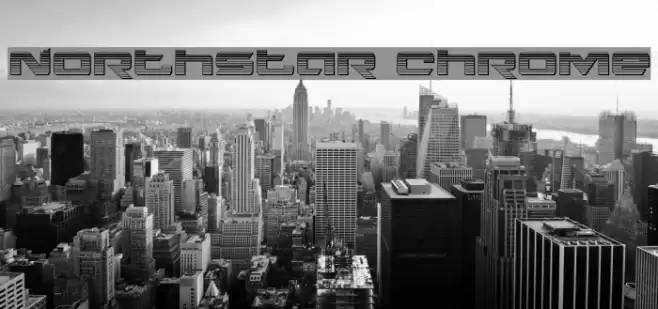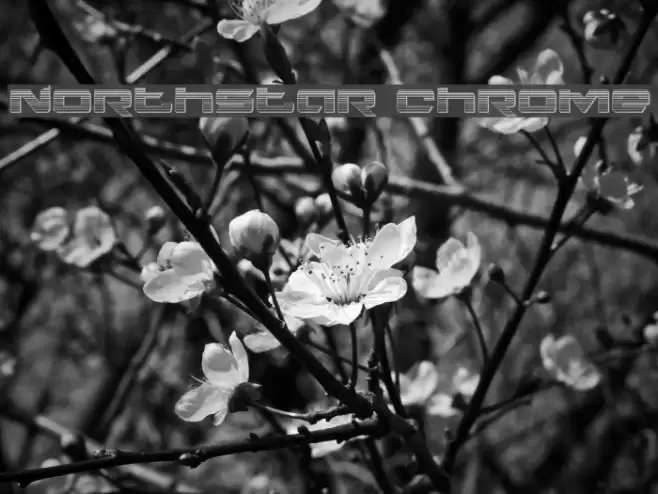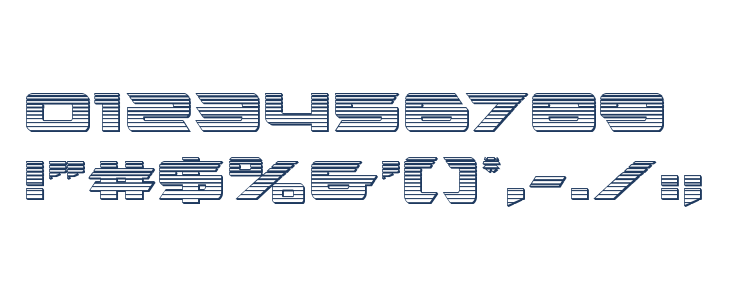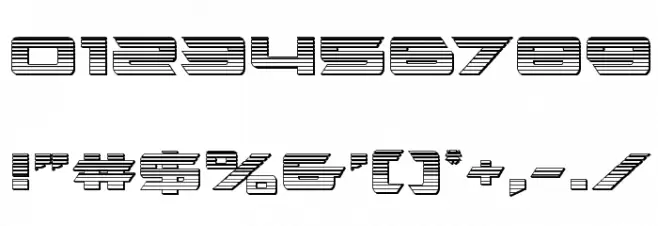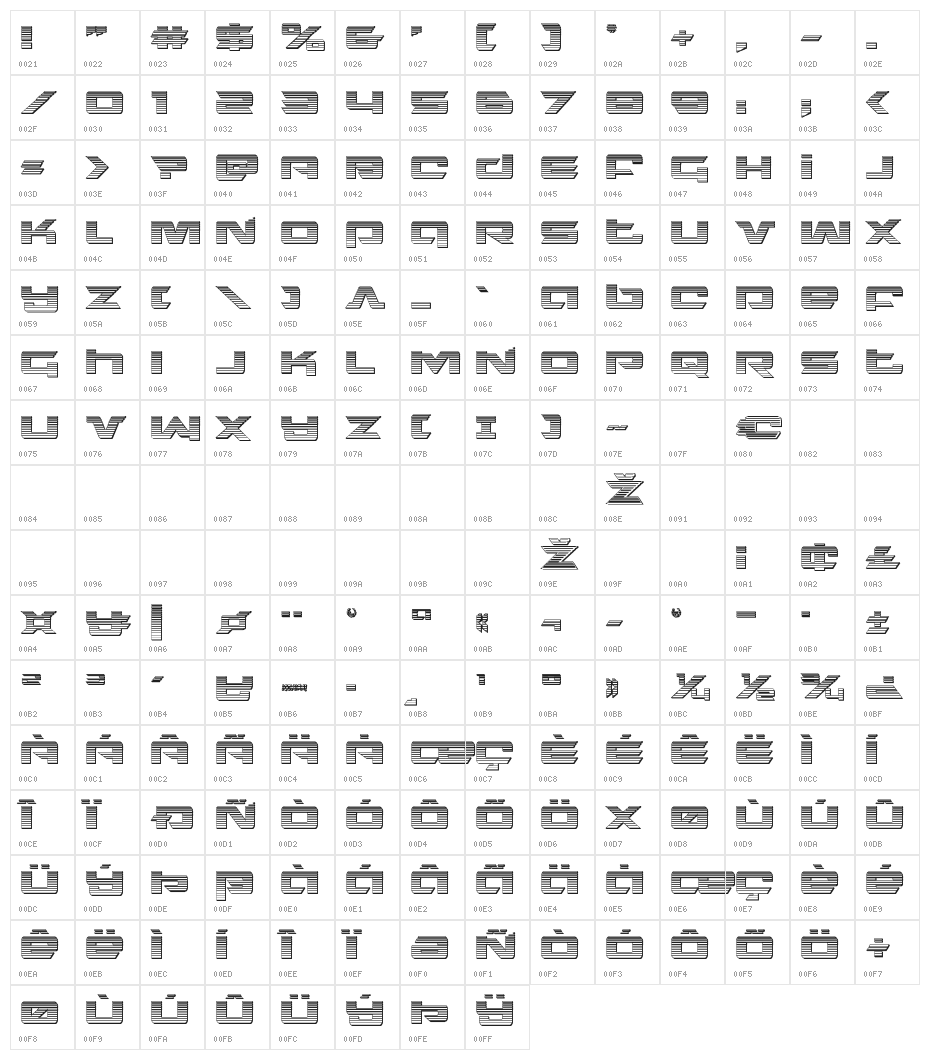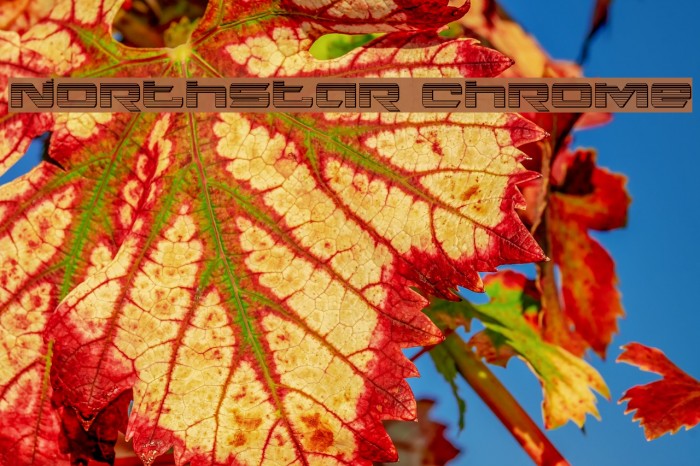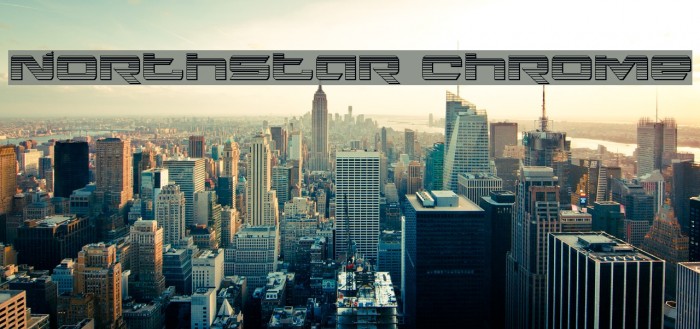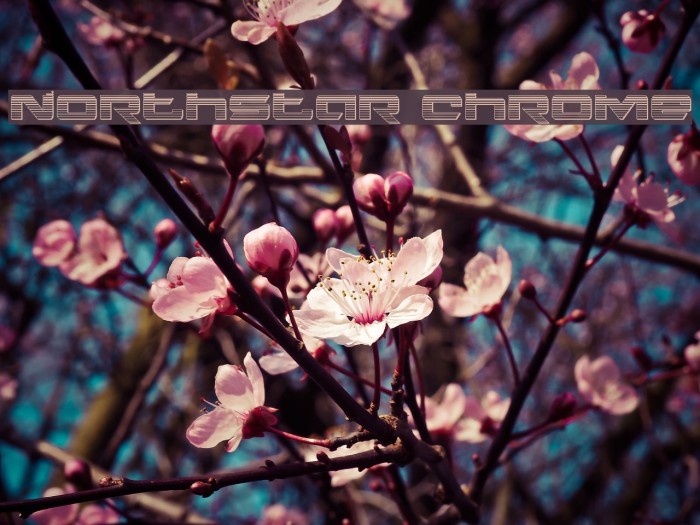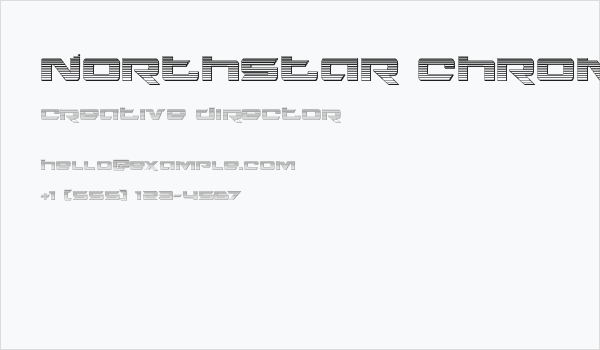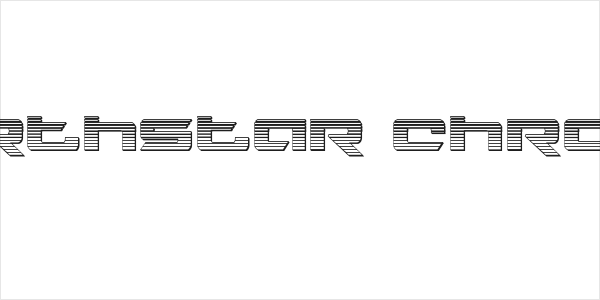
Northstar Chrome Font
Northstar Chrome Description
This font features a futuristic and industrial design, characterized by its bold, geometric shapes and horizontal line patterns that create a sense of movement and depth. The letters are constructed with a series of parallel lines, giving them a three-dimensional appearance. The uppercase and lowercase letters maintain a consistent style, with sharp angles and a modern aesthetic. The numerals and special characters follow the same design principles, ensuring uniformity across all glyphs. This font's unique style makes it stand out, ideal for projects that require a modern and edgy look.
A futuristic, geometric font with bold, parallel line patterns from Uncategorized fonts.
- Proposed Projects: Ideal for sci-fi themed designs, technology branding, video game titles, and futuristic posters.